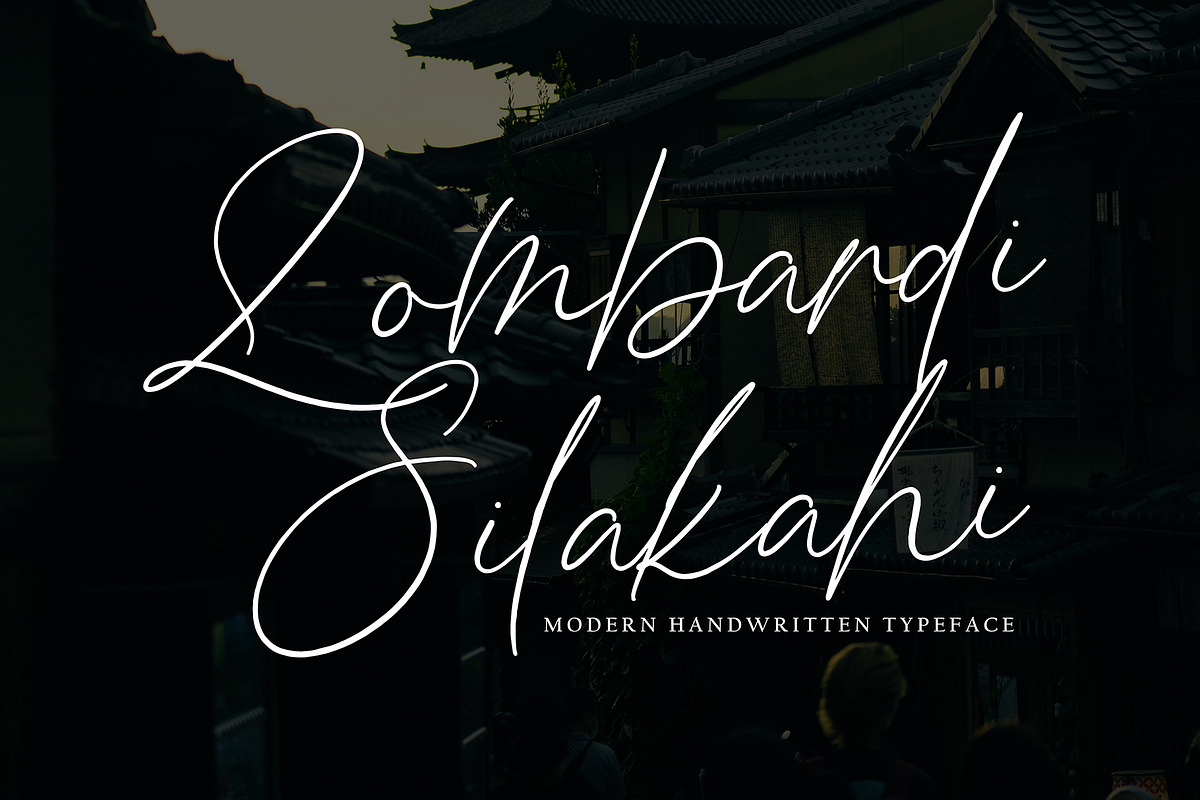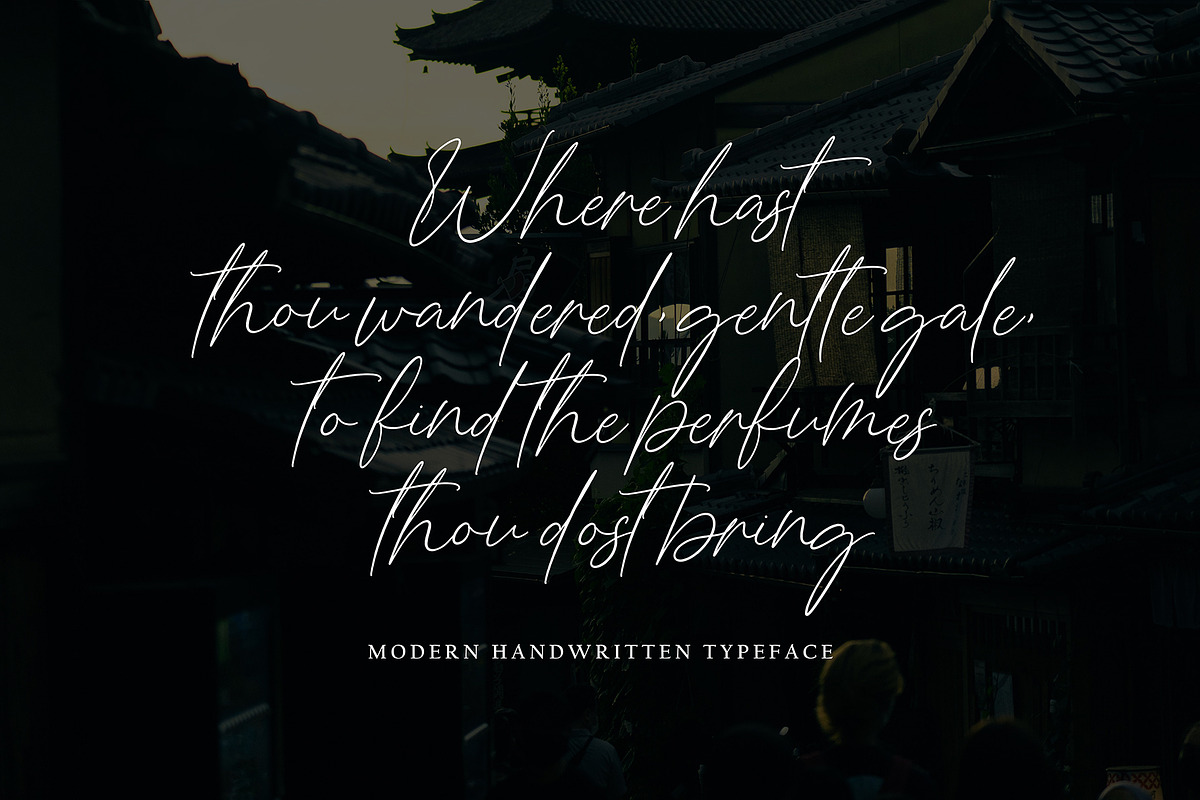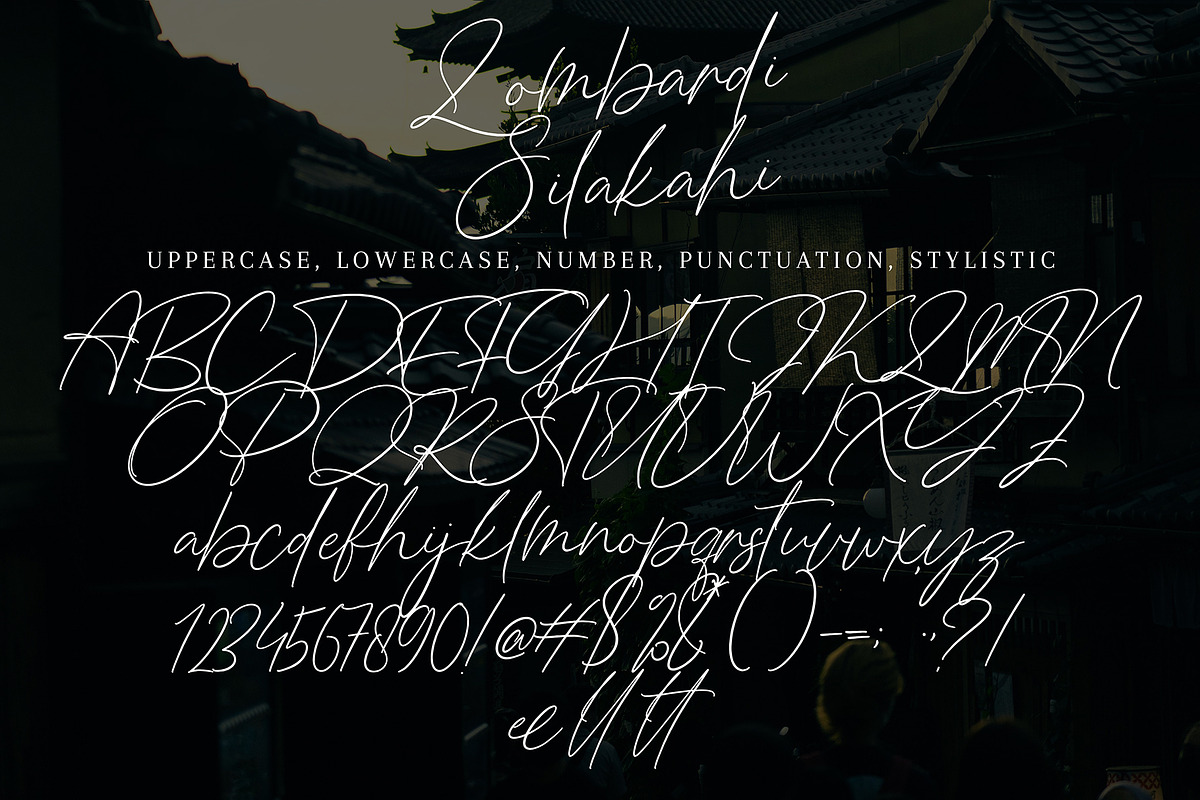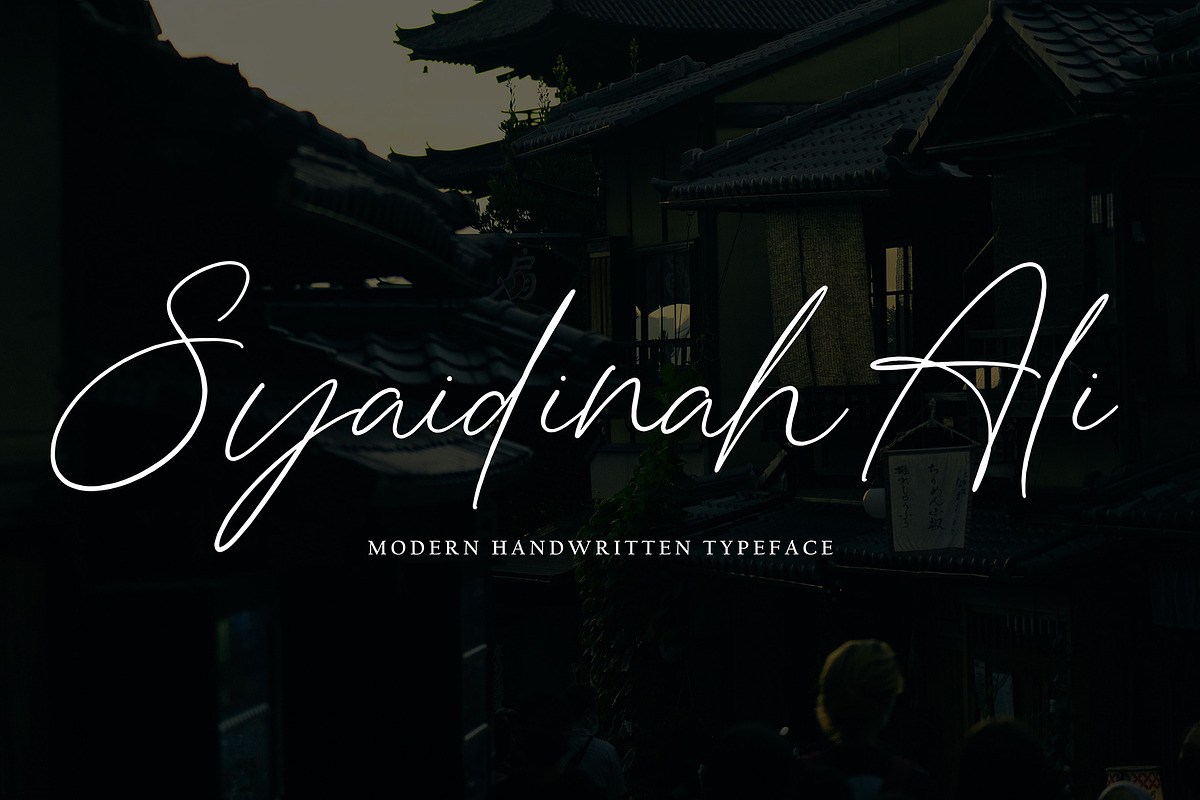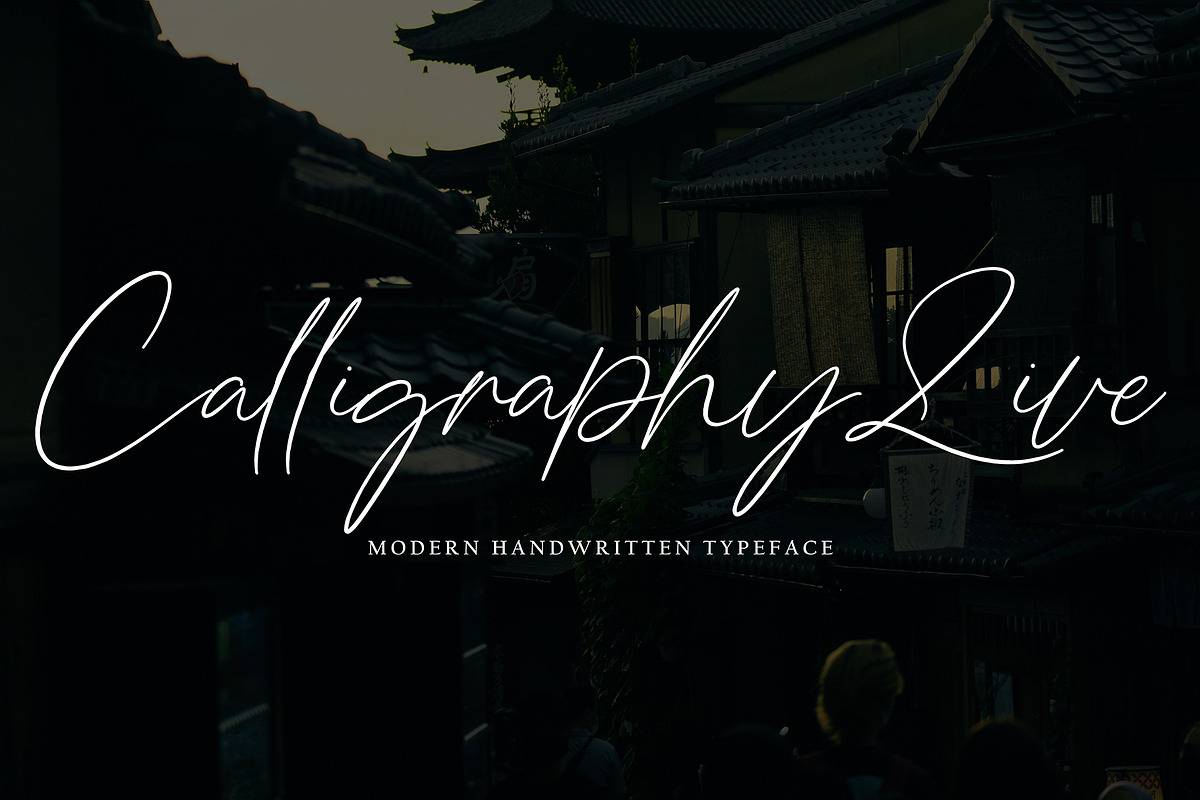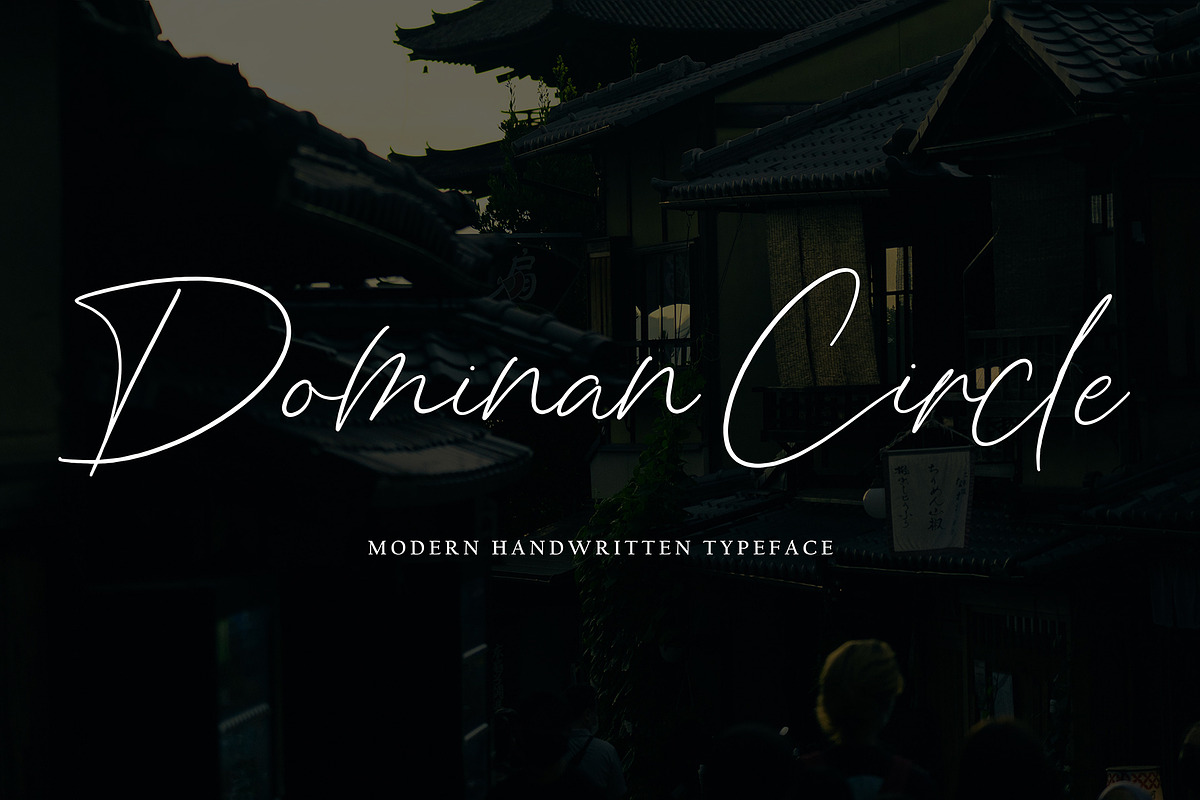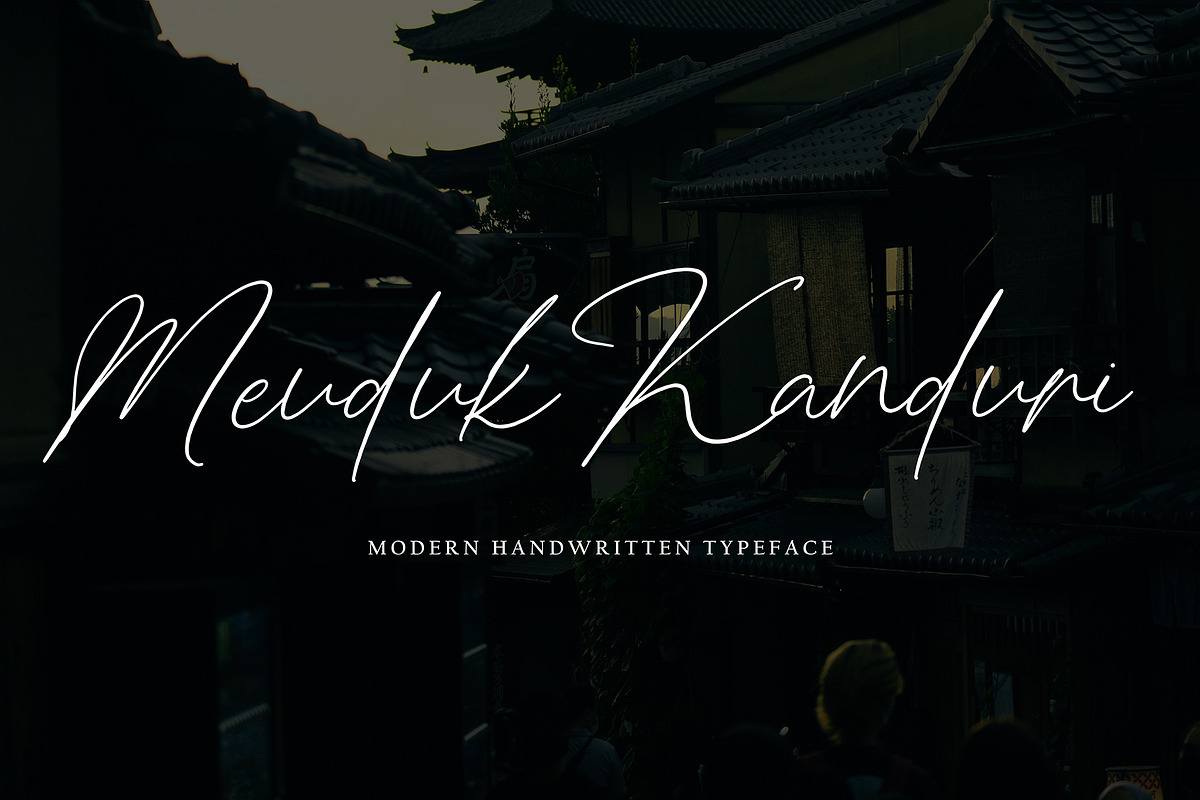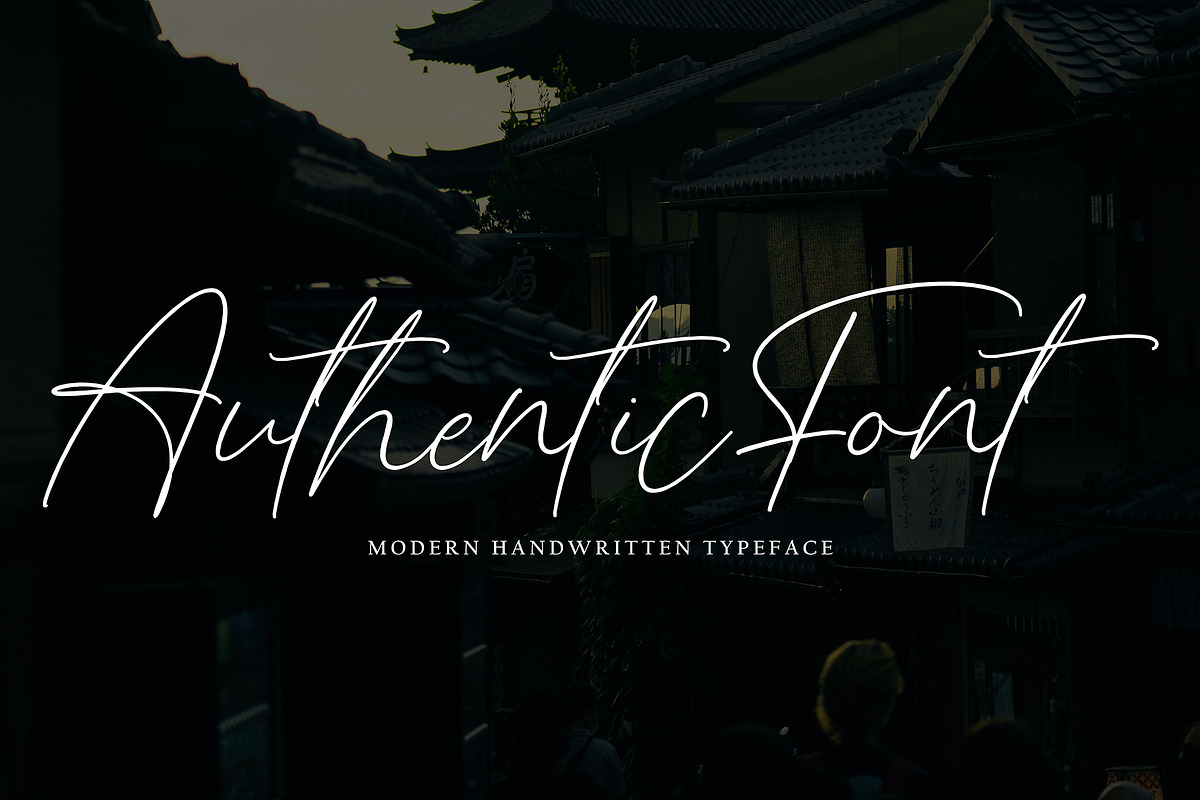
Lombardi Silakahi
Lombardi Silakahi with new style, this font will perfect for many different project ex: quotes, logo, blog header, poster, banding, letter, invitation, stationery, etc...